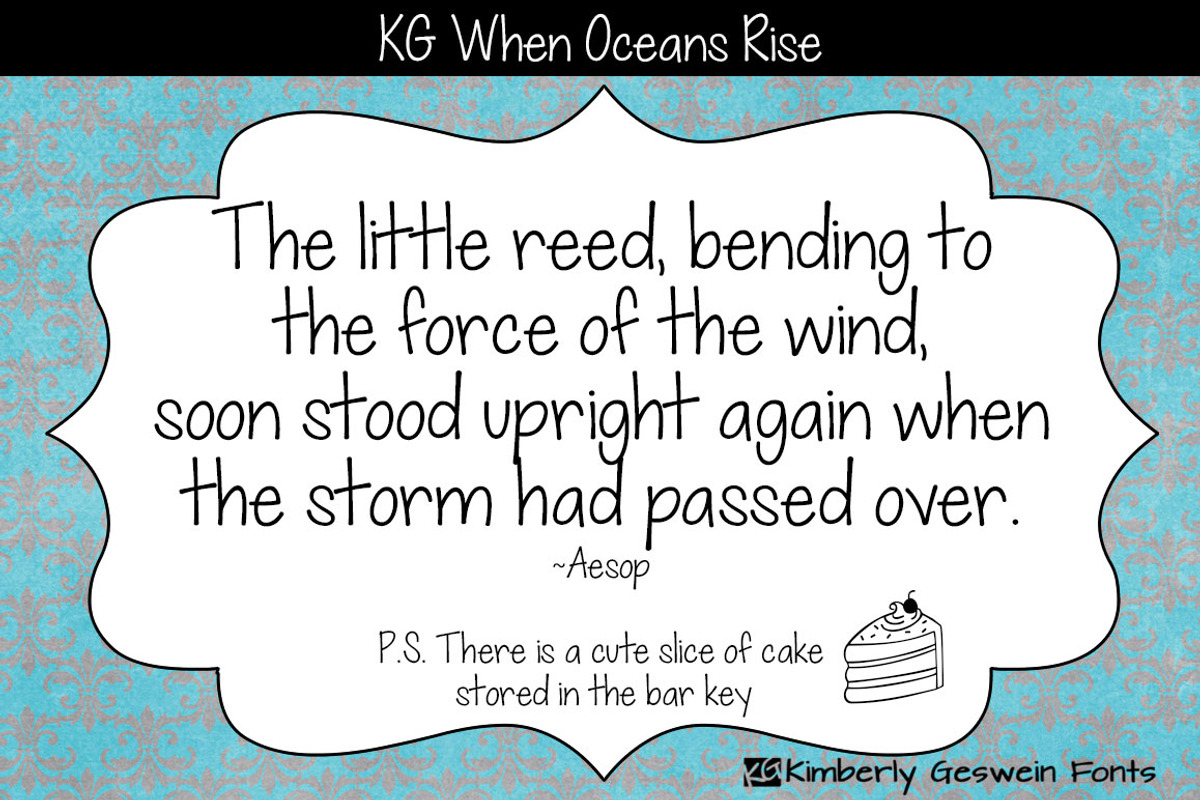
KG When Oceans Rise
KG When Oceans Rise by Kimberly Geswein Fonts is a font selected for branding, posters, packaging, typography.
- The bar key | contains a cute slice of cake.
Why KG When Oceans Rise is worth a look
KG When Oceans Rise by Kimberly Geswein Fonts fits naturally into Branding, posters, packaging, typography.